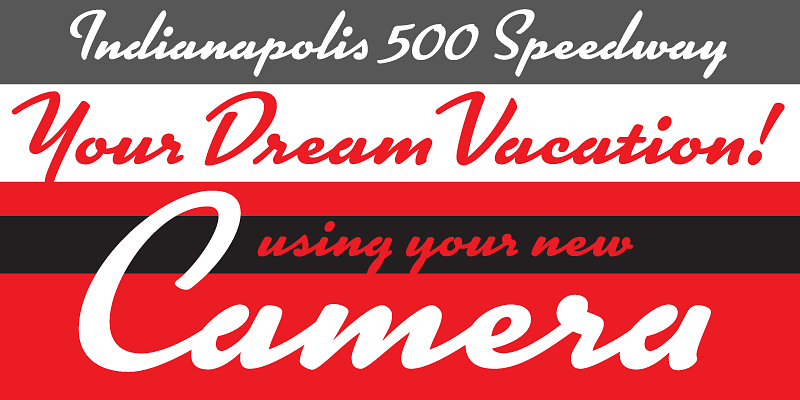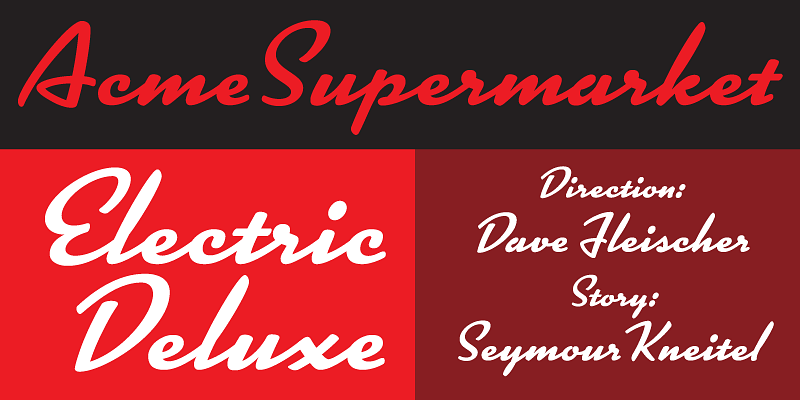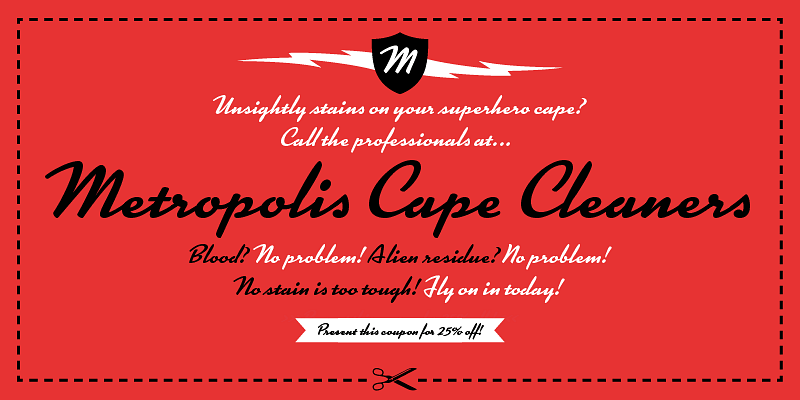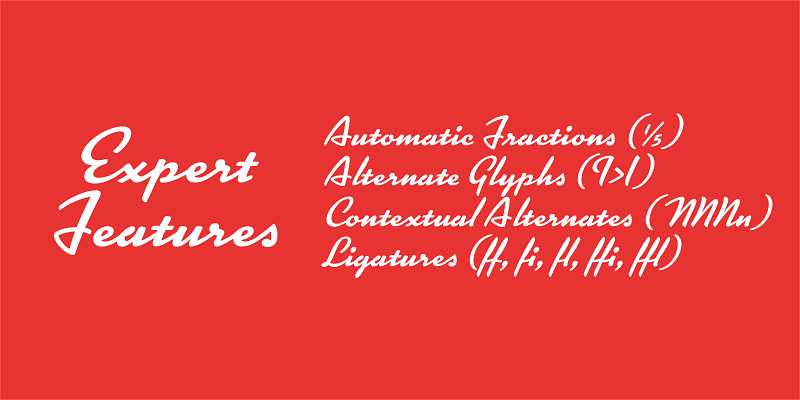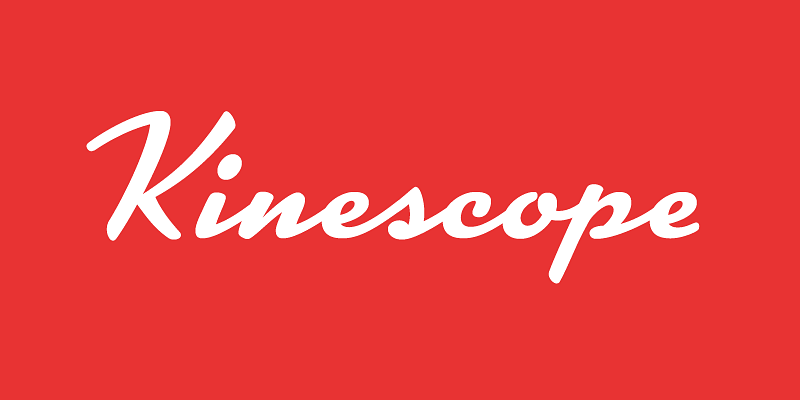
Kinescope (2007) is a dashing 1940s-style brush script, inspired by hand-lettered titles in Fleischer Brothers’ Superman cartoon series. Although I used that as a starting point, there was much room for interpretation, and many characters had to be invented. Kinescope uses some OpenType magic to mimic hand lettering, automatically choosing the best character shape based on its position in a word. Kinescope was designed along side of and released with another Fleischer Brothers-inspired design, Snicker.